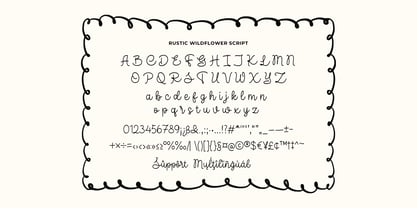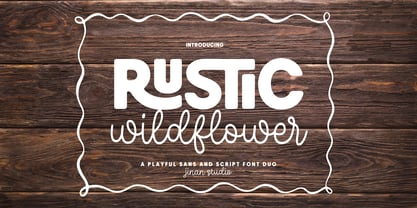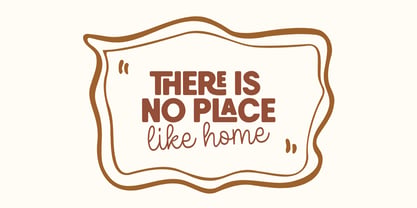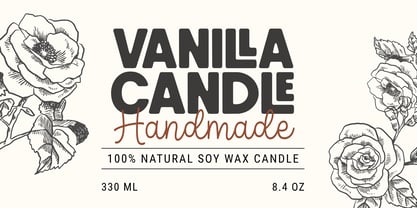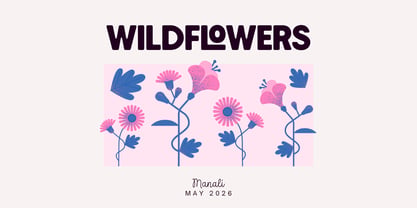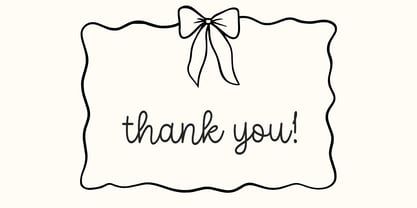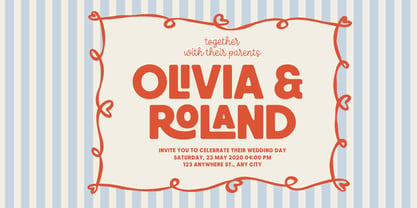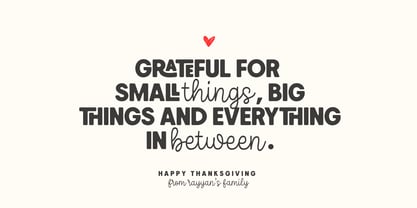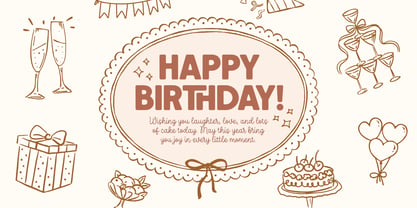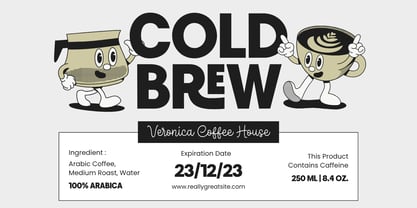
Rustic Wildflower
by Jinan Studio
The Rustic Wildflower Font Family was designed by Andi Syahdang and published by Jinan Studio. Rustic Wildflower contains 3 styles and family package options. More about this family
Rustic Wildflower is a playful font duo featuring a modern sans serif and a natural handwritten script. The sans serif comes in Regular and Rounded styles, giving you the flexibility to create both clean and friendly designs.
Perfect for logos, branding, packaging, social media, invitations, greeting cards, t-shirts, stickers, Cricut & Silhouette projects, and more. Create eye-catching designs with the perfect blend of modern simplicity and handwritten charm using Rustic Wildflower.
• A set of uppercase and lowercase glyphs (allcaps sans version)
• Number, symbol, and punctuation
• Multilingual Support
• Ligatures
• Rounded Version